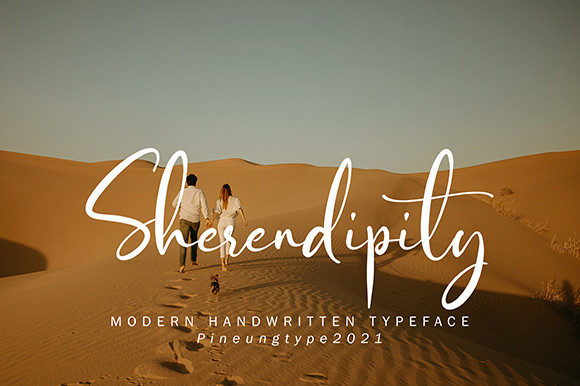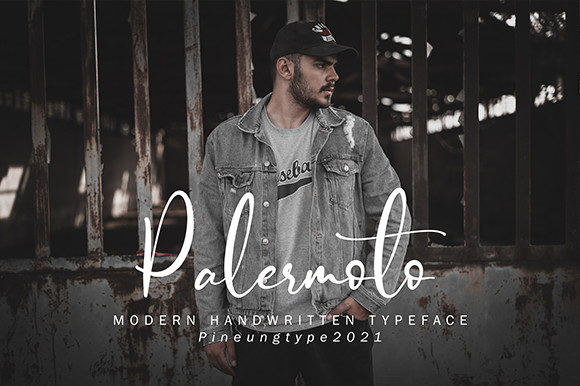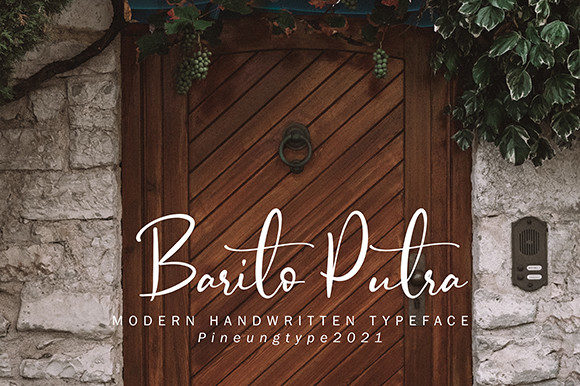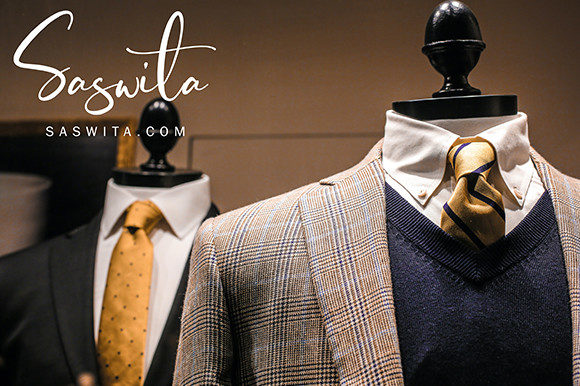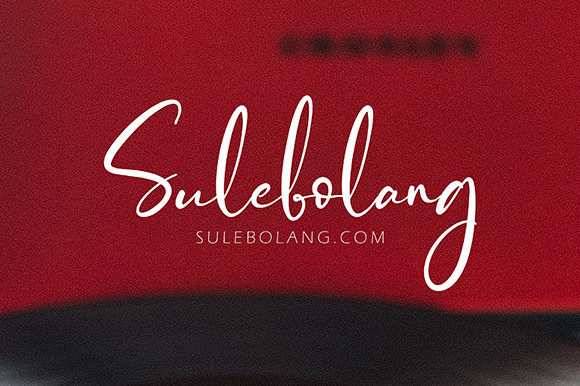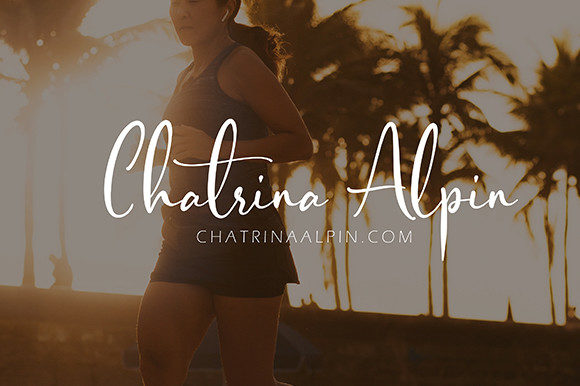
The Enchanting Enternity Sunset Font: A Designer’s Dream Come True
I’ll never forget the time I was working on a wedding invitation project, and my client asked for a font that was ” elegant, yet playful, and made them feel like they were floating on air.” I scoured the internet, tried out countless fonts, but nothing seemed quite right. That was until I stumbled upon the Enternity Sunset font. It was like a breath of fresh air – delicate, flowing, and oh-so-charming. In this article, I’ll share my love for this beautiful script font, its features, and how to make the most of it in your designs.
An Honest Review of Enternity Sunset
- ✨ Delicate and flowing script: Enternity Sunset has a beautiful, cursive feel that’s perfect for creating elegant and sophisticated designs.
- 💕 Perfect for wedding and romantic designs: The font’s whimsical and romantic feel makes it ideal for wedding invitations, thank you cards, and other love-themed designs.
- 🎨 Versatile: Use it for quotes, greeting cards, logos, business cards, and any other design that needs a touch of elegance.
While Enternity Sunset is an amazing font, there are a few things to keep in mind:
- 🤔 Some characters may require manual adjustment: As with any script font, you may need to tweak some characters to get the perfect flow and spacing.
- ⚠️ Not suitable for body text: Due to its delicate nature, Enternity Sunset is best used for headlines, titles, or short paragraphs.
The Backstory of Enternity Sunset
Enternity Sunset was created with love and care by a talented font designer who wanted to capture the essence of a romantic sunset. The font’s delicate and flowing script is inspired by the gentle curves of a summer breeze. Whether you’re designing a wedding invitation or a simple greeting card, Enternity Sunset is sure to bring a touch of magic to your project.
Q: Is Enternity Sunset suitable for body text?
A: No, Enternity Sunset is best used for headlines, titles, or short paragraphs due to its delicate nature.